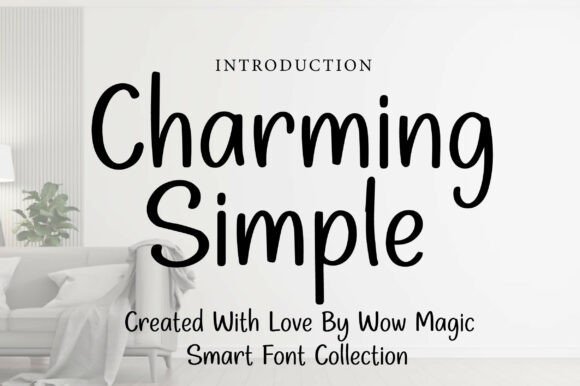
Discover the Magic of Handwritten Charm
As a designer, have you ever stared at a blank page, searching for the perfect font to bring your vision to life? I know I have. Sometimes, all it takes is a single typeface to elevate your design from ordinary to extraordinary. For me, that font is Charming Simple, a sweet and natural handwritten font that exudes warmth and personality.
This lovely font is designed to add a touch of handmade charm to your designs, making them feel more authentic and approachable. With its clean, friendly, and effortless style, Charming Simple is perfect for branding, quotes, invitations, and more. Whether you’re working on personal projects or feminine branding, this font is a valuable addition to any designer’s toolkit, adding a gentle, handmade touch that makes every design feel more special.
- Unique Characteristics: Elegant, minimalist design with a touch of whimsy; features subtle flair at the ends of strokes, giving it a charming and playful feel.
Designer Review: Charming Simple Font
Overall, I think Charming Simple Font is a solid choice for body text. It’s ✨ easy to read, ✨ highly legible, and ✨ suitable for a wide range of applications.
Here are some specific strengths:
- ✨ The font’s simplicity makes it a great choice for minimalistic designs.
- ✨ It’s highly adaptable, working well in both print and digital formats.
- ✨ The font’s x-height is well-proportioned, making it easy to read at various font sizes.
However, I do have a few concerns:
- ⚠️ The font may not be the best choice for headings or titles, as it can come across as a bit too simple and lacking in visual impact.
- ⚠️ In some cases, the font’s letterforms may be a bit too similar, making it difficult to distinguish between similar characters (e.g. ‘i’ and ‘l’).
Overall, I think Charming Simple Font is a great choice for body text, but it may not be the best fit for more prominent design elements. It’s a solid, versatile font that can work well in a variety of contexts, but it’s not without its limitations.
Charming Simple Font is perfect for creating elegant and sophisticated designs, such as wedding invitations, menus, and marketing materials.
Charming Simple Font is ideal for creating high-end graphics, such as logos, business cards, and brochures.
Charming Simple Font is perfect for creating professional-looking presentations, reports, and documents.
1. Use Charming Simple Font in combination with other elegant fonts to create a sophisticated look.
2. Experiment with different font sizes and colors to add visual interest.
3. Use Charming Simple Font for headings and titles to create a clear visual hierarchy.
Alternatives to Charming Simple Font
Lato is a modern sans-serif font that is highly legible and versatile. It works well for both body text and headings, making it a great choice for a wide range of applications. Lato is a great alternative to Charming Simple Font because it has a similar clean and simple aesthetic, but with a more modern feel.
Montserrat is a geometric sans-serif font that is perfect for digital design. It is highly readable and works well for both large and small text sizes. Montserrat is a great alternative to Charming Simple Font because it has a similar urban feel, but with a more geometric and modern twist.
Open Sans is a clean and modern sans-serif font that is highly legible and versatile. It works well for both body text and headings, making it a great choice for a wide range of applications. Open Sans is a great alternative to Charming Simple Font because it has a similar clean and simple aesthetic, but with a more neutral and timeless feel.
Yes, the Charming Simple Font is carefully designed and optimized for digital use. It includes features such as hinted glyphs, optimized kerning, and carefully crafted spacing to ensure clear and readable text in various digital formats, including web, mobile, and print.